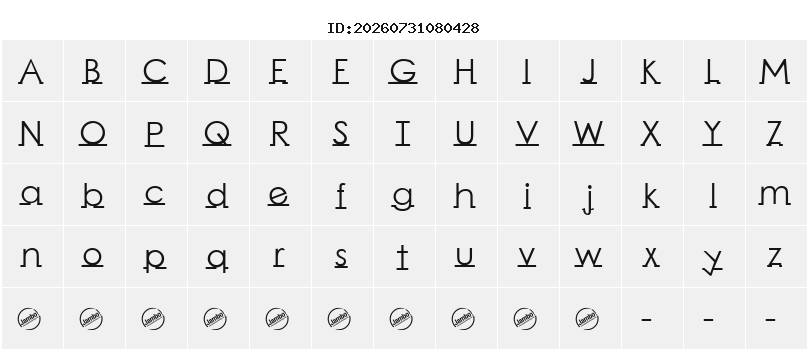
• Font Name: Linearmente
• Designer: Jambo!
About Linearmente.ttf
Linearmente.ttf is a modern, elegant sans-serif font designed for ultimate readability and visual harmony. Perfect for branding, headlines, web design, and print materials.